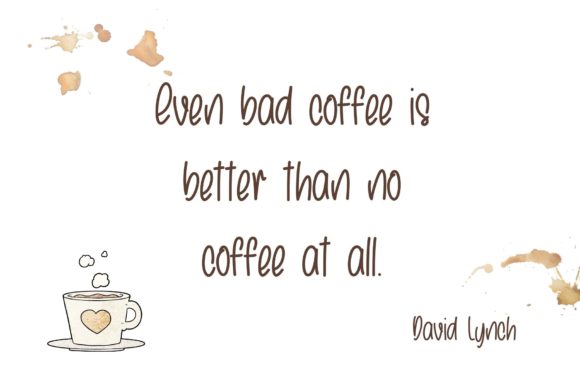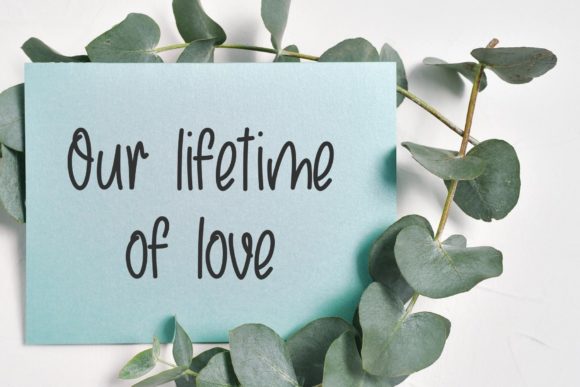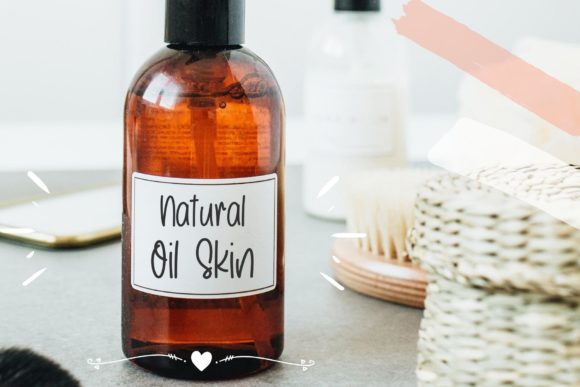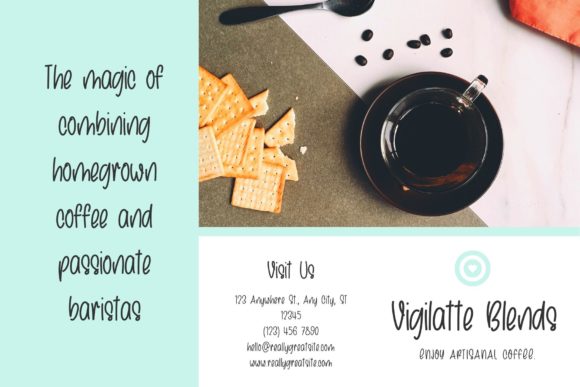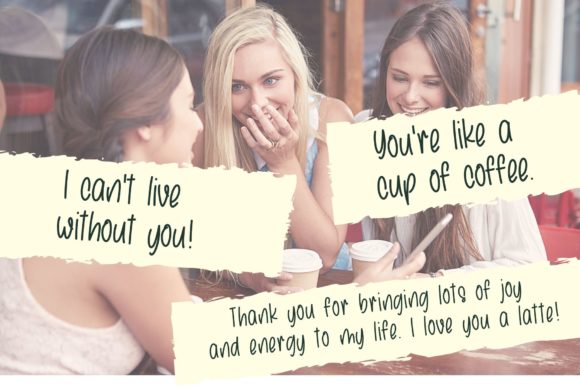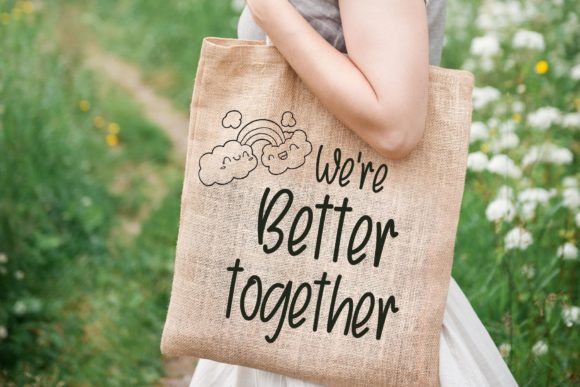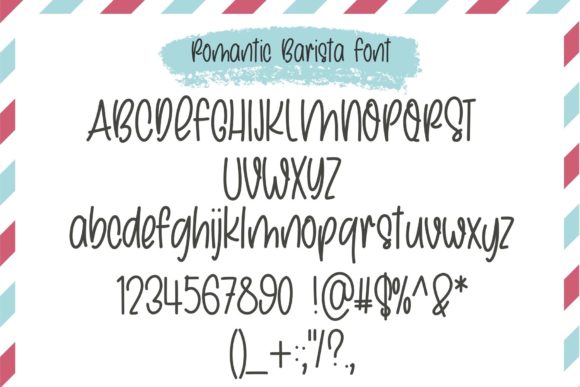
Romantic Barista Font
About Romantic Barista Font
Romantic Barista: Embrace the Modern and Chic Handwritten Font
Introducing Romantic Barista, a font that exudes modernity and chicness in every stroke. With its handwritten style, this font brings a touch of romance and sophistication to your designs. Prepare to be captivated by its unique charm and let it inspire you to create spectacular designs that leave a lasting impression.
The allure of Romantic Barista lies in its modern and chic appearance. Each letter carries a sense of elegance, creating a graceful flow that adds a touch of sophistication to your designs.
Designing with Romantic Barista is a delightful experience. Whether you’re creating stylish wedding invitations, designing trendy branding materials, or crafting captivating social media graphics, this font elevates your work with its versatile style.
Expressing sentiments becomes an art form with Romantic Barista. Its romantic nature breathes life into your words, making them resonate with emotions that touch the heart.
Gorgeous designs come to life with Romantic Barista’s versatility. Whether you’re creating logos for upscale brands or designing chic packaging, this font adds a contemporary flair that captures attention.
For businesses seeking a brand identity that stands out, Romantic Barista is the answer. Its modern and chic appearance communicates a sense of elegance and sophistication, making it a perfect choice for brands looking to make a stylish statement.
And when it comes to unleashing your creativity, Romantic Barista won’t disappoint. Its versatility allows it to complement various design concepts, from romantic and dreamy to chic and upscale.
In conclusion, Romantic Barista is more than just a font; it’s a modern and chic masterpiece that will make you fall in love with its charm. Embrace its graceful elegance, and let it inspire your most creative ideas. Whether you’re crafting romantic invitations, designing trendy branding, or adding a touch of sophistication to your designs, Romantic Barista will be your ultimate ally, adding a sense of modernity and chicness. Let this font be the key to unlocking the full potential of your creativity, and watch as your designs come alive with the modern and chic charm of Romantic Barista.